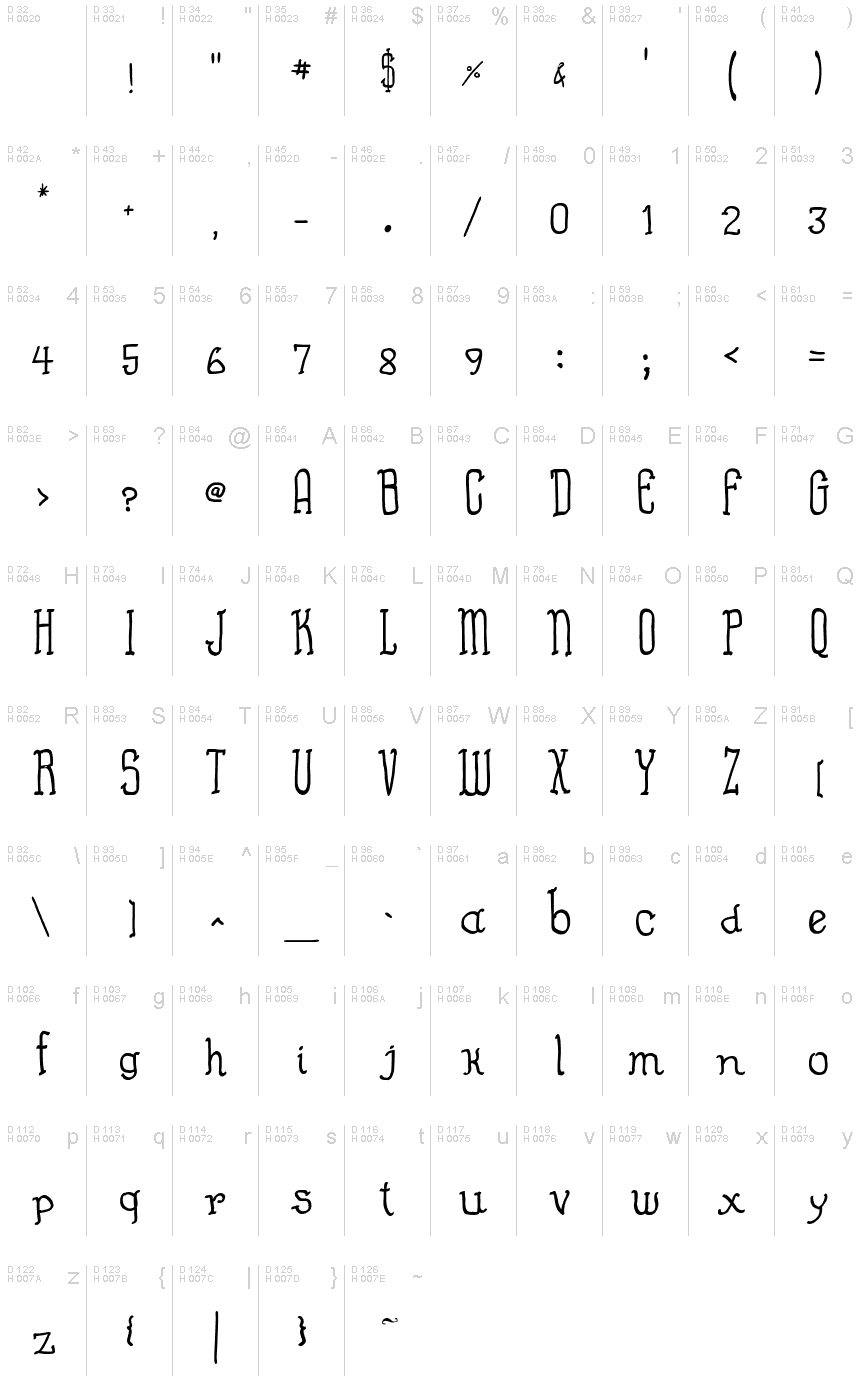
Almost Cartoon
Almost Cartoon is a playful and vibrant display font created by the talented Galdino Otten. With its semi-light weight and condensed width, this font exudes a whimsical charm that is perfect for a variety of projects. Its script style adds a touch of creativity and uniqueness, making it suitable for children's book covers, animated movie titles, cartoon logos, comic strips, and even eye-catching website headers. Let your imagination run wild with Almost Cartoon as it brings life and character to any design project you embark upon.